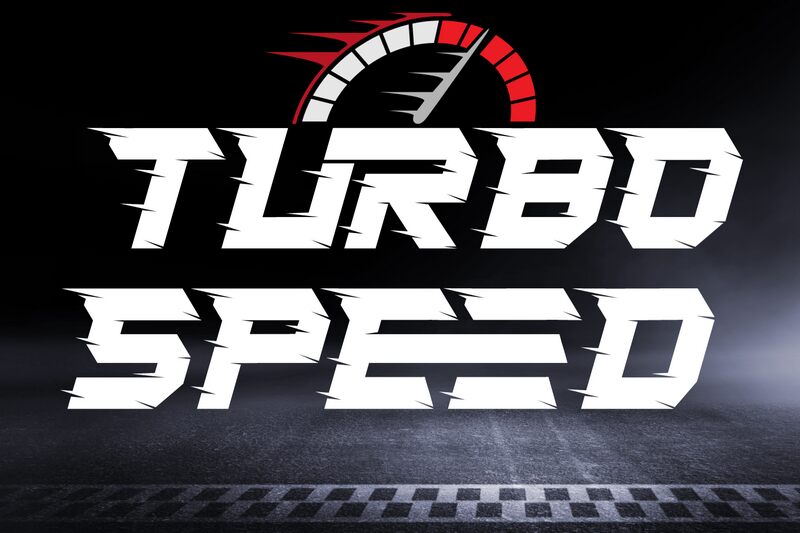
Turbo Speed Italic font by 177Studio is a techno display bold typeface with futuristic, angular, and edgy forms. The highly aggressive and impactful letters are arranged in lowercase format, where angular objects are numerous dominantly at the ends of strokes and letter endings. Expect a strong dynamic typography style that will meet the needs of many branding projects.
This free display font will work exceptionally for designing logo designs, creating packaging layouts, or preparing poster designs. Use it for digital website headers, flyers or invitations to go along printed material such as t-shirts, hats or signage that you might have planned for your brand's interior design.